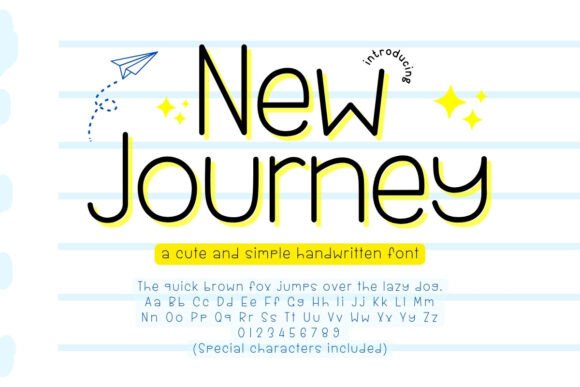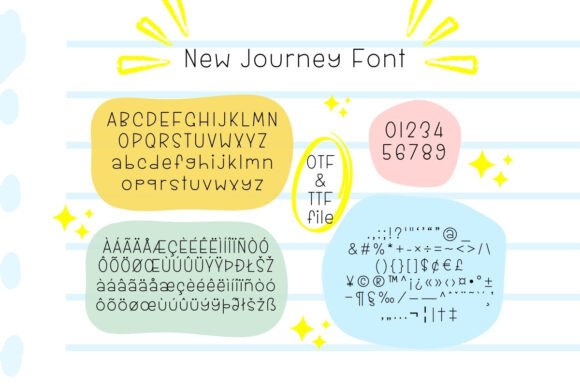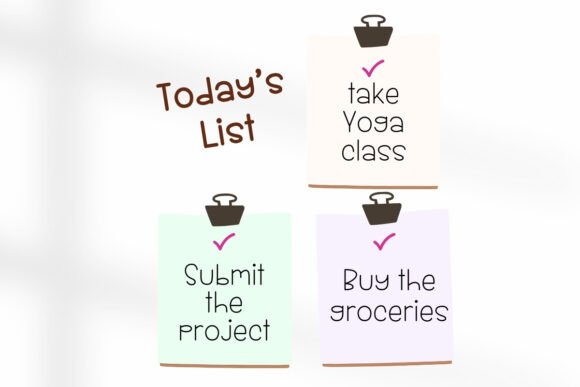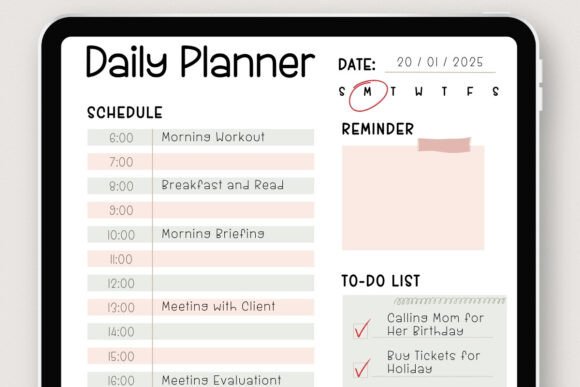
New Journey Font: Cute Handwritten Typography for Student Planners!
About the New Journey Font
Get ready to be inspired by New Journey Font, a fresh and dynamic typeface for modern creators. Introducing New Journey — a cute and clean handwriting font perfect for all your school notes, digital planners, student journals, and creative projects! With its simple and friendly style, this font is ideal for GoodNotes, iPad, Procreate, Canva, and crafting projects.
Take your note-taking, planning, and creative designs to a whole new level with New Journey — the font for fresh starts and cute layouts!
New Journey’s friendly, informal style makes it perfect for branding projects targeting a young, creative audience, particularly those focused on education, crafts, or stationery. It excels in short headlines, social media graphics, and packaging for products with a similar aesthetic. However, its informal nature makes it less suitable for body text or situations requiring high readability over extended lengths. Avoid using it in UI design or formal documents.
Pair New Journey with a clean sans-serif like Lato for a balanced contrast, or a playful script font like Great Vibes for a more whimsical feel. A geometric sans-serif such as Montserrat could add a modern edge while retaining readability if used for supporting text.
The font projects a cheerful, approachable personality, ideal for conveying optimism and creativity. Its informal style makes it best suited for projects requiring a friendly, approachable aesthetic, but not those demanding a serious or professional tone.